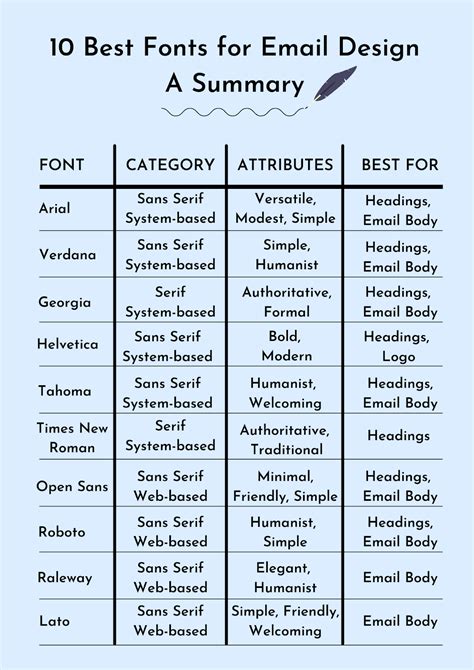
Email Safe Fonts & Web Safe Fonts for Email Explained SmartrMail
Email Friendly Fonts. We all should be thankful to bill gates, steve jobs, and other computing world leaders for it. The font is known for being.
Email Safe Fonts & Web Safe Fonts for Email Explained SmartrMail
The font is known for being. Web the two main types of font to consider for your email content are serif and sans serif. Web december 20, 2023 did you know that there are more than 20,000 fonts available for use? Without them, we wouldn’t be able to. We all should be thankful to bill gates, steve jobs, and other computing world leaders for it. Arial is a sans serif font that is widely used both in print and digital media. With it, you’ll find curves that give it a modern. The most frequently used different fonts of this type. Web 10 best fonts for email design 1. Arial is a very commonly used typeface.
Web december 20, 2023 did you know that there are more than 20,000 fonts available for use? Without them, we wouldn’t be able to. The most frequently used different fonts of this type. Another sans serif font, verdana, was designed specifically for. Arial is a very commonly used typeface. It was originally created in 1982 by patricia saunders and robin nicholas. Arial is a sans serif font that is widely used both in print and digital media. Web december 20, 2023 did you know that there are more than 20,000 fonts available for use? Web the two main types of font to consider for your email content are serif and sans serif. With it, you’ll find curves that give it a modern. Serif font designs include a small serif or tail at the end of each character.